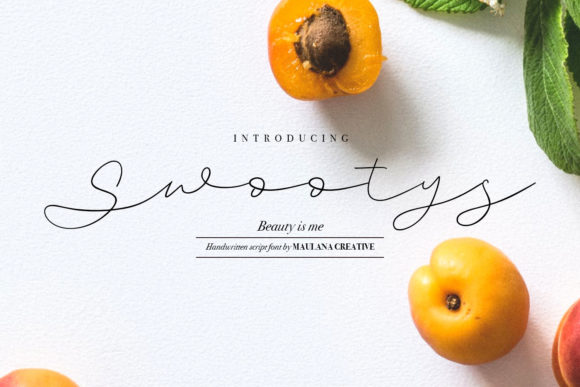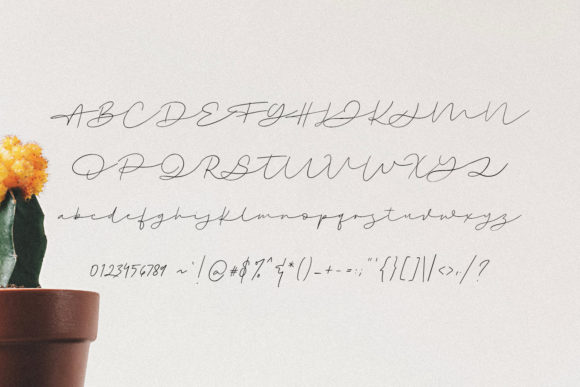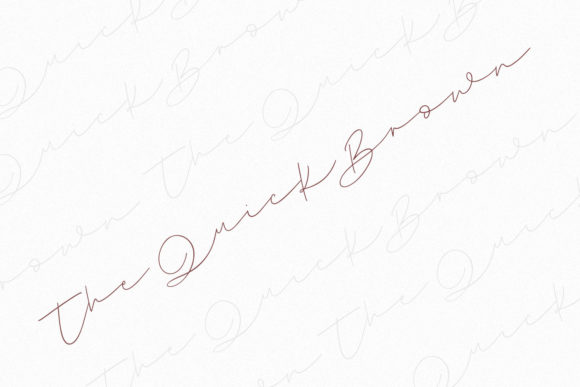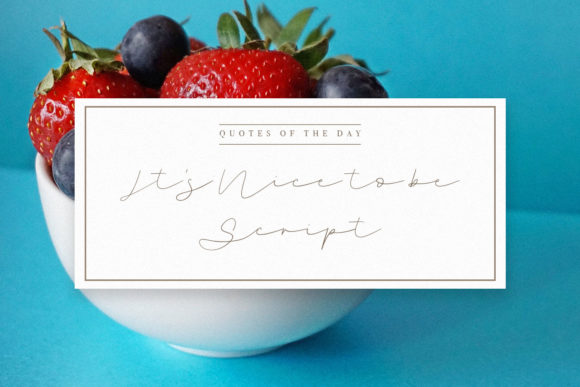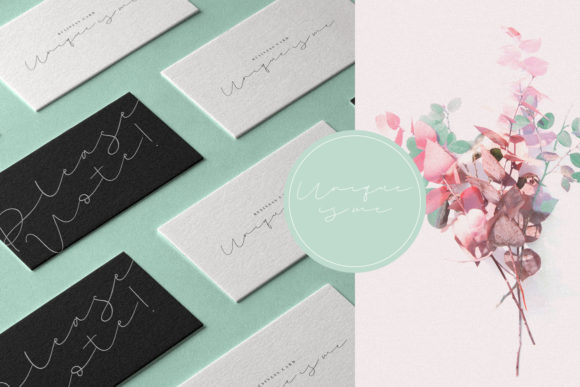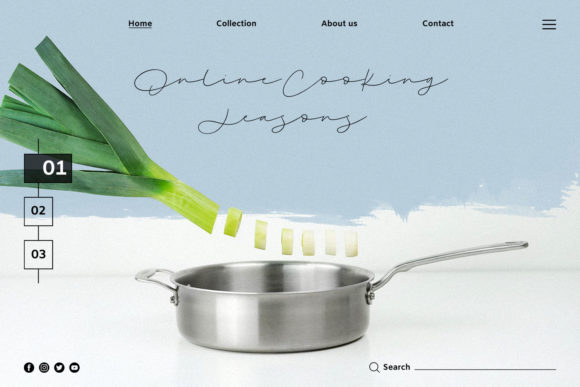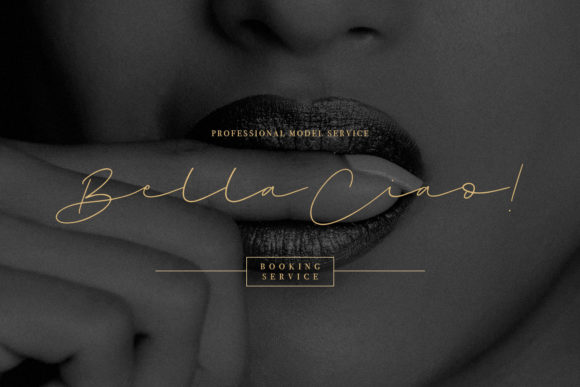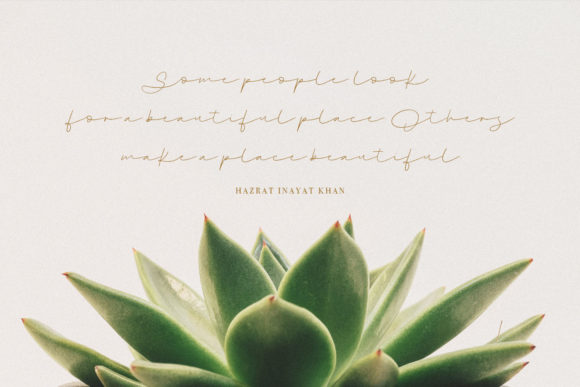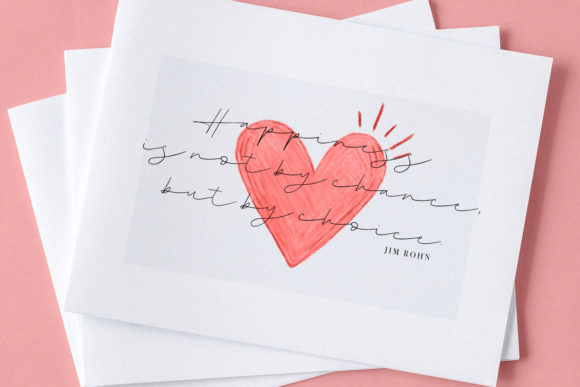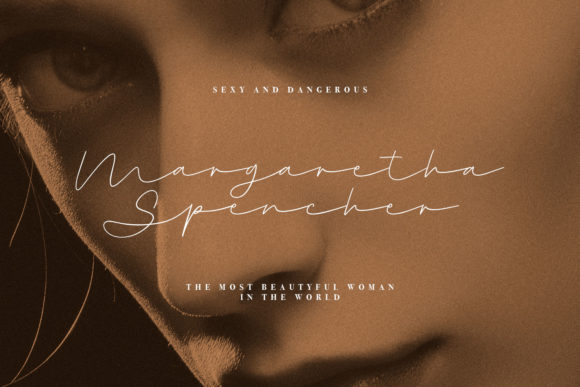
Swootys Script Font
About Swootys Script Font
Looking for something sweet and fun? Look no further: Swootys is the perfect script to elevate any design project with its modern authenticity.